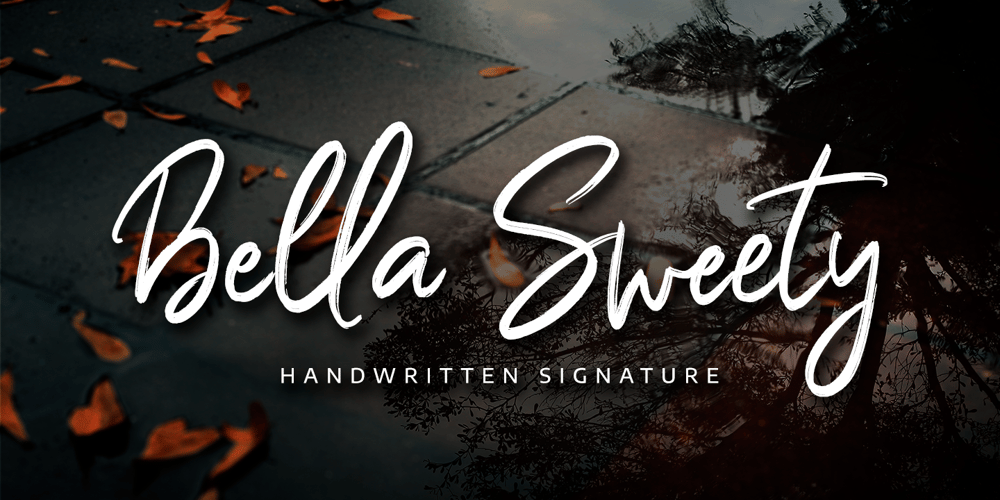
Bella Sweety Font Family was designed by Abdul Malik Wisnu and published by Almarkha Type. Bella Sweety contains 1 styles and family package options. Bella Sweety- Its a handwritten script font with a Signature Style and classy style, this font is great for your creative projects such as watermark on photography, and perfect for logos & branding, photography, invitation, watermark, advertisements, product designs, stationery, wedding designs, label ,product packaging, special events or anything that need handwritingAccessible in the Adobe Illustrator, Adobe Photoshop, Adobe InDesign, even work on Microsoft Word.PUA Encoded Characters – Fully accessible without additional design software.Fonts include multilingual supportImage used : All photographs/pictures/vector used in the preview are not included, they are intended for illustration purpose only.Cheers! Thank You